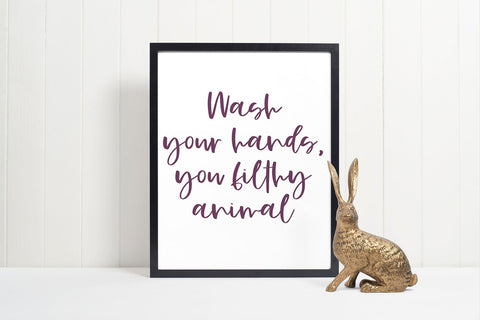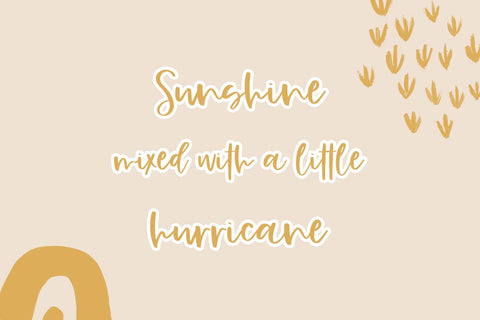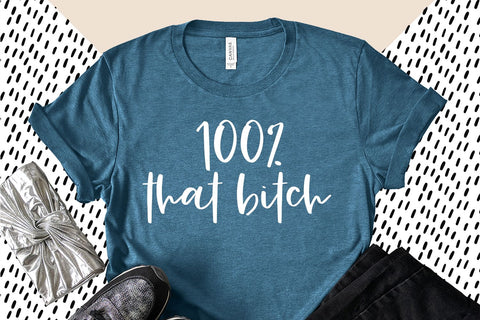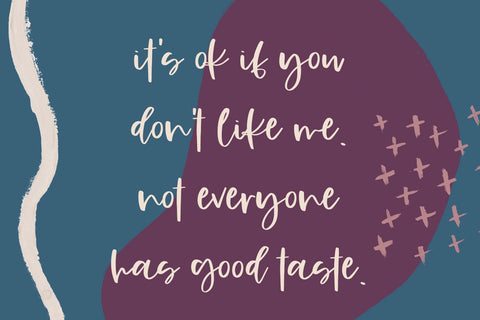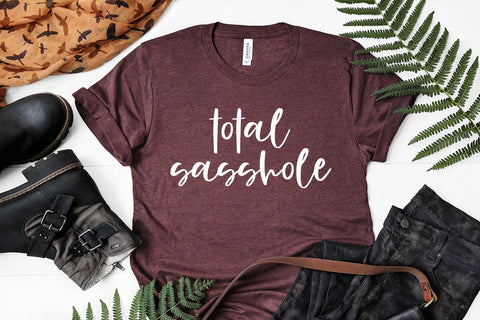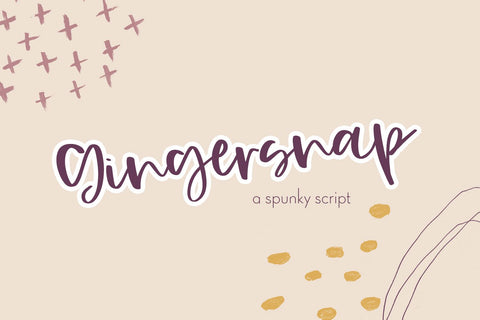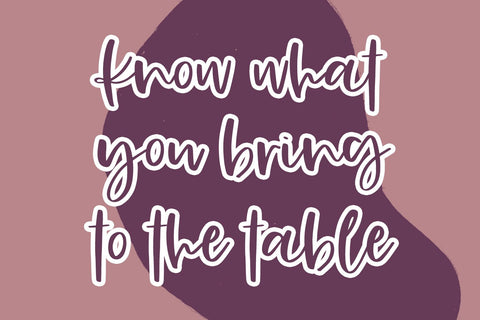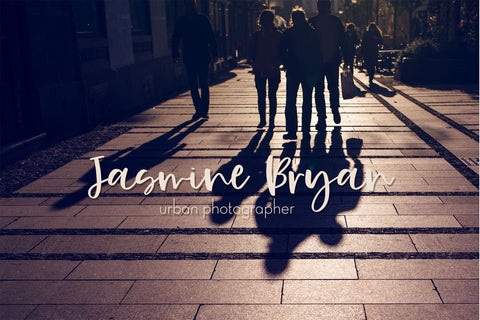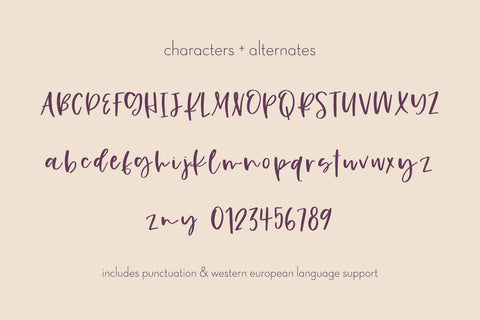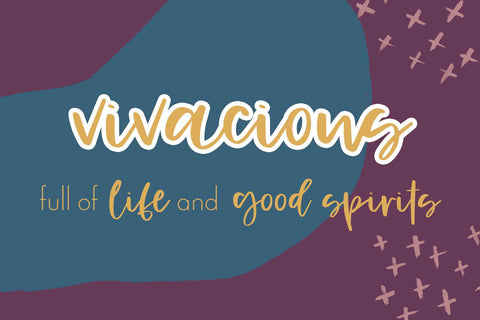
Gingersnap Script Font
Meet Gingersnap, a bouncy, bubbly, slightly messy calligraphy script.
Gingersnap is best for:
- logos + branding
- website design + website accents - think travel blogs, fashion blogs, & more
- clean print design, like magazines + flyers
- header elements that need handwritten touch
- quote graphics for social media
Gingersnap includes:
- full upper + lowercase characters
- numbers + punctuation
- Western European Language Support
- 2 alternates, n and y